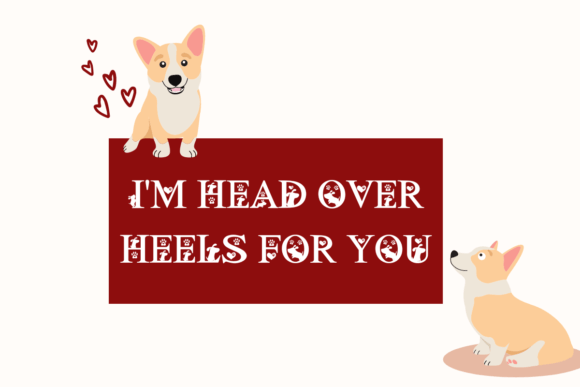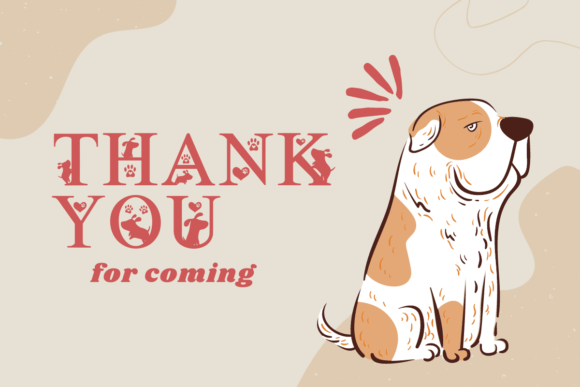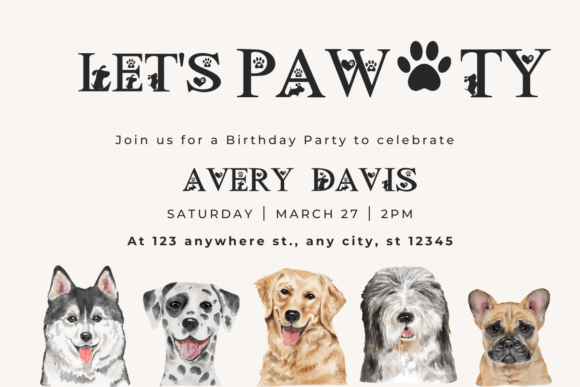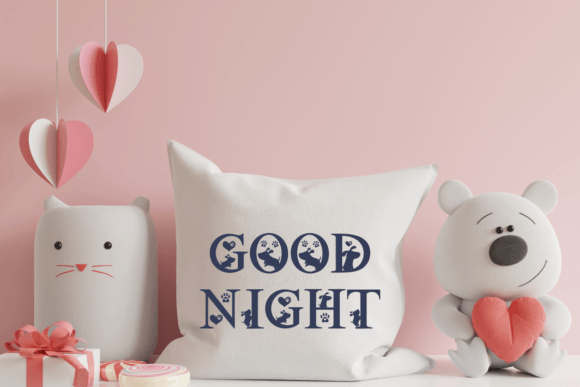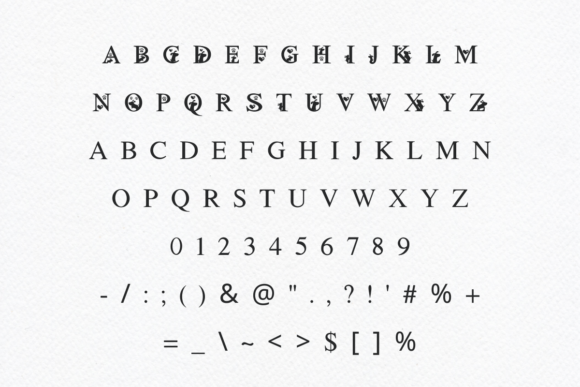
Unleash the Cuteness: Exploring the Dog Love Font
Are you a designer, crafter, or DIY enthusiast looking for a fun and playful font to add a touch of whimsy to your projects? Look no further than the Dog Love Font! This adorable decorative font features cute little dogs and paw prints, making it perfect for creating eye-catching and engaging designs.
What is Dog Love Font?
Dog Love Font is a unique and creative typeface that showcases a collection of adorable dog illustrations and paw prints. This fun font is designed to bring a smile to your face and add a playful touch to your designs. Whether you’re working on a graphic design project, crafting a handmade card, or creating a fun DIY sign, Dog Love Font is sure to delight.
Key Features of Dog Love Font
- Cute Dog Illustrations: The font features a range of adorable dog illustrations, each one lovingly designed to capture the unique personality of our canine friends.
- Paw Print Designs: In addition to the dog illustrations, the font also includes a variety of paw print designs, perfect for adding a subtle yet fun touch to your projects.
- Playful and Whimsical: Dog Love Font is all about having fun and embracing the playful side of design. It’s perfect for projects that require a lighthearted and carefree approach.
Uses for Dog Love Font
So, what can you create with Dog Love Font? The possibilities are endless! Here are a few ideas to get you started:
- Fun and Playful Signs: Create eye-catching signs for your home, business, or event with Dog Love Font. Perfect for dog-themed cafes, pet stores, or animal shelters.
- Cute Cards and Invitations: Add a personal touch to your handmade cards and invitations with Dog Love Font. Ideal for dog lovers and pet owners.
- Social Media Graphics: Create engaging social media graphics with Dog Love Font. Perfect for dog-related businesses, animal rescue organizations, or pet enthusiasts.
- DIY Crafts: Use Dog Love Font to add a personal touch to your DIY crafts, such as customized pet tags, dog collars, or pet-themed decorations.
Tips for Using Dog Love Font
Here are a few tips to help you get the most out of Dog Love Font:
- Experiment with Colors: Don’t be afraid to experiment with different colors and combinations to bring your designs to life.
- Mix and Match: Combine Dog Love Font with other fonts and design elements to create unique and eye-catching designs.
- Keep it Simple: Don’t overcomplicate your design. Sometimes, less is more, and a simple design with Dog Love Font can be just as effective.
In conclusion, Dog Love Font is a fun and cute decorative font that’s perfect for designers, crafters, and DIY enthusiasts. With its adorable dog illustrations and paw print designs, it’s sure to add a playful touch to your projects. Whether you’re creating signs, cards, social media graphics, or DIY crafts, Dog Love Font is a great choice. So why not give it a try and unleash the cuteness in your designs?